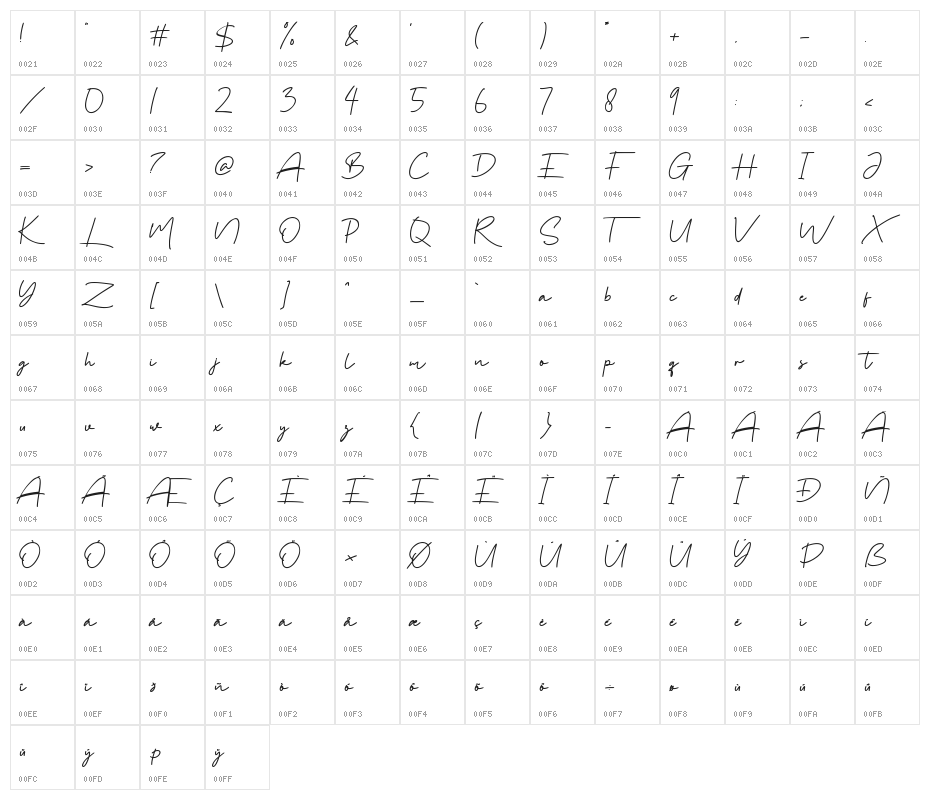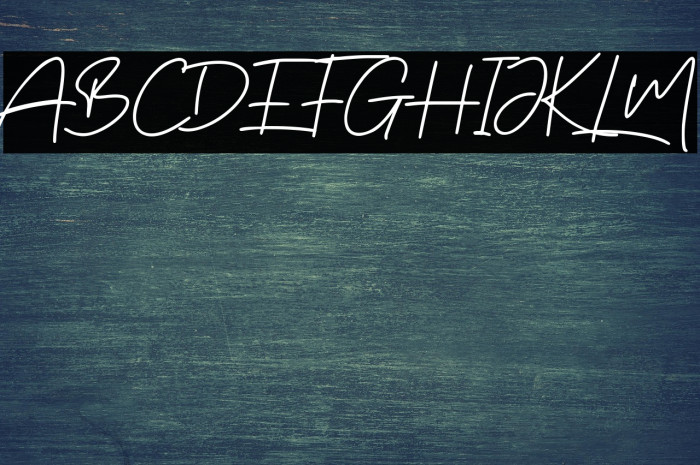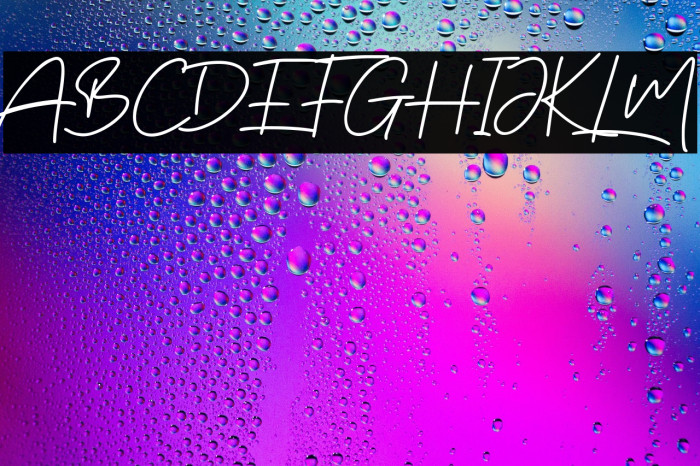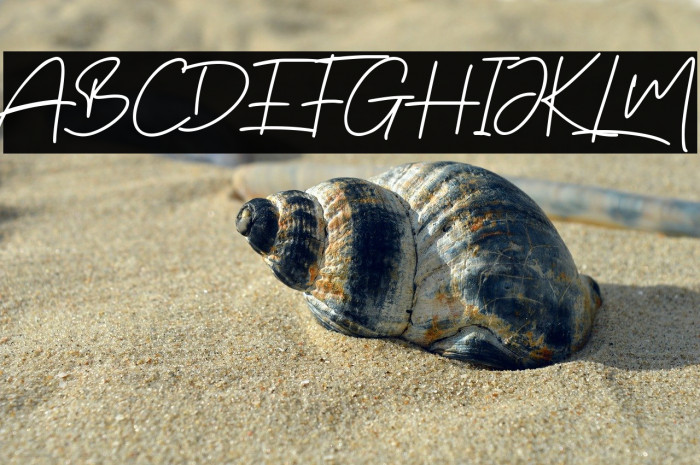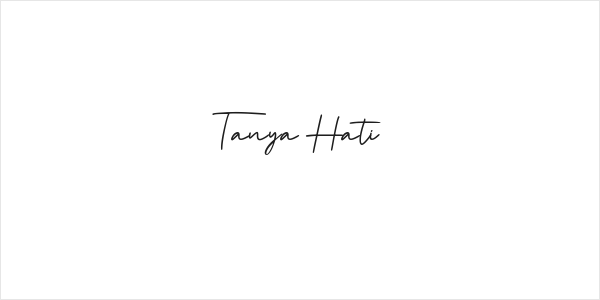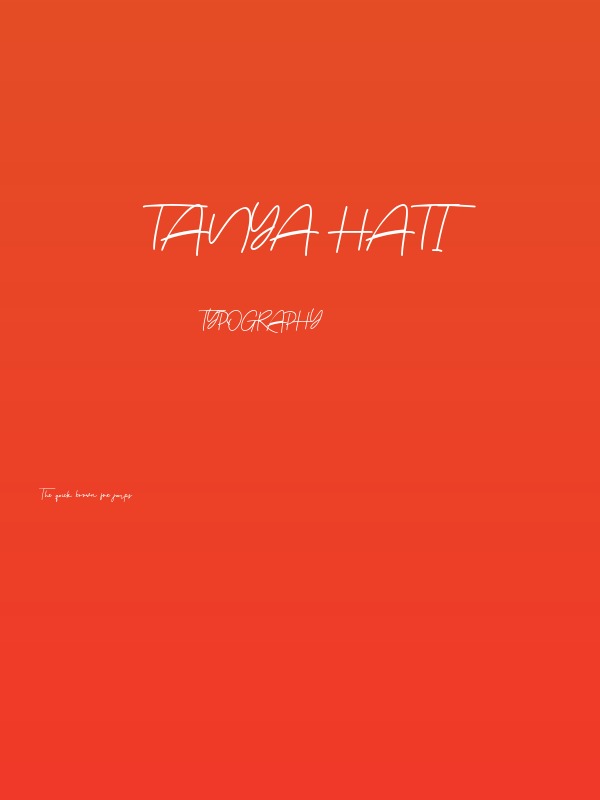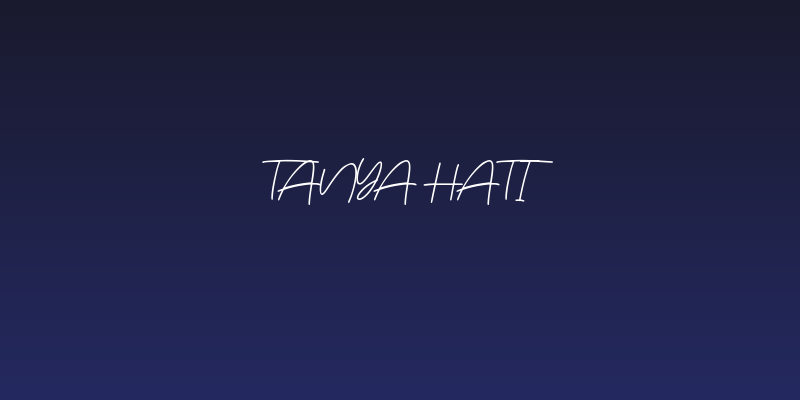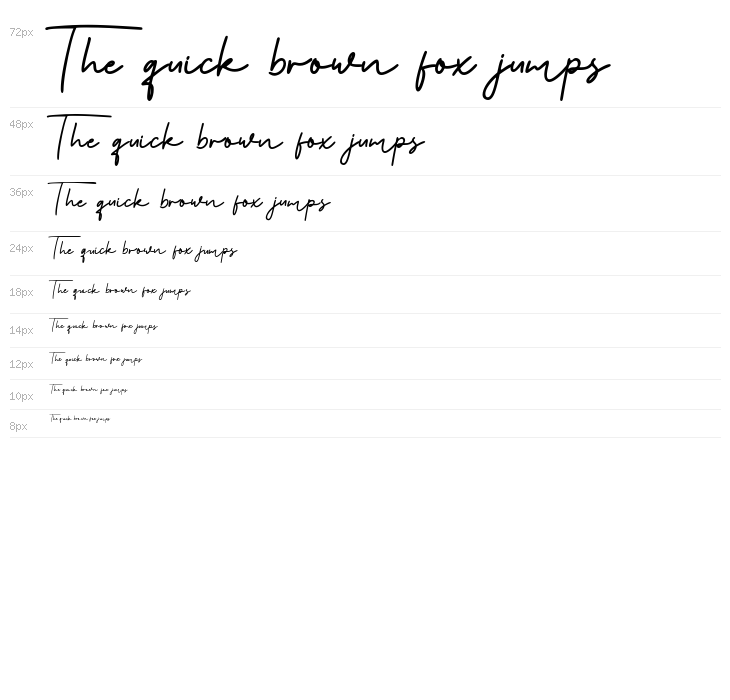
Tanya Hati Font
Tanya Hati Description
A casual, handwritten script font with tall, narrow letterforms and natural, flowing strokes. The characters have a loose, organic feel, with varying line thickness and a slightly irregular baseline, mimicking authentic handwriting.
| Overall Style | Casual, Modern, Organic |
| Use Case | Logos, Headlines, Short text, Invitations |
| Proposed Projects | Greeting cards, personal branding, social media graphics, quotes, invitations. |